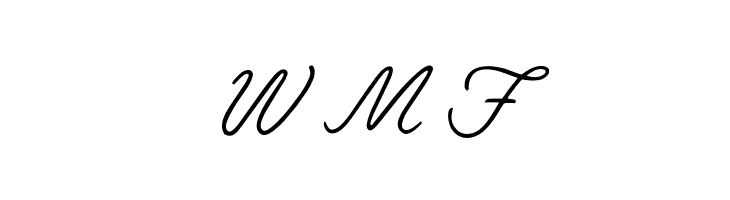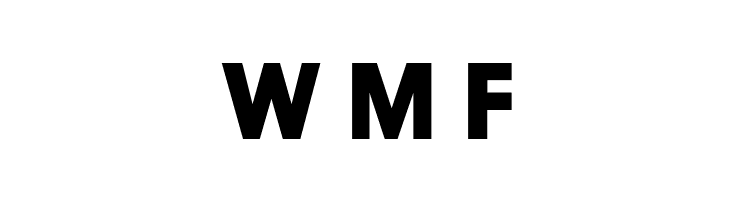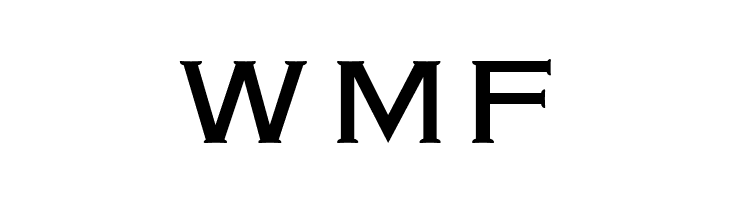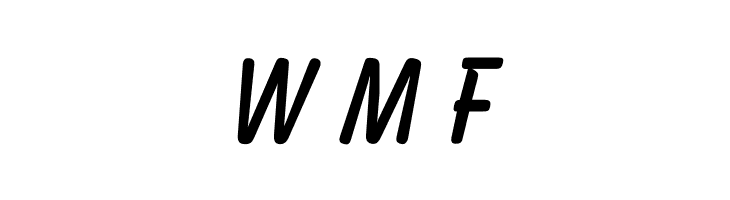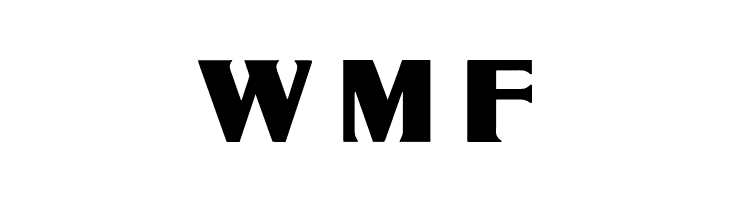
A modern, geometric font with clean lines and a sleek design.
A bold, playful font with rounded, cartoonish characters.
A graceful and elegant script font with a flowing, cursive style.
A bold, modern sans-serif font with geometric lines and strong presence.
A modern, clean font with balanced proportions and strong readability.
A bold, handwritten font with a playful and dynamic style.
A bold, high-contrast font ideal for impactful designs and headlines.
A classic serif font with elegant curves and sharp edges, offering a timeless and sophisticated look.
A bold, modern serif font with sharp, angular serifs and a strong visual impact.
A bold, classic serif font with strong strokes and pronounced serifs.